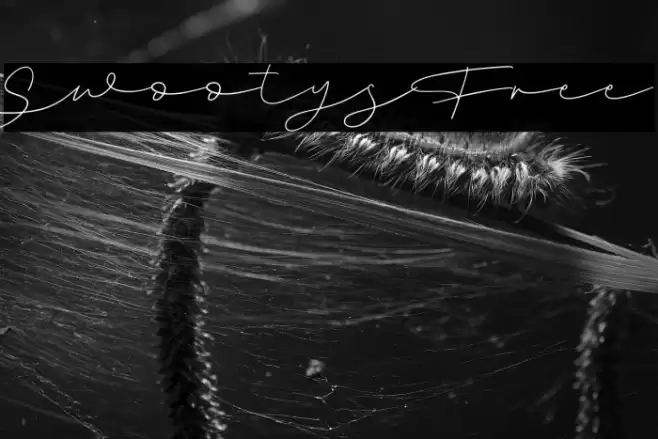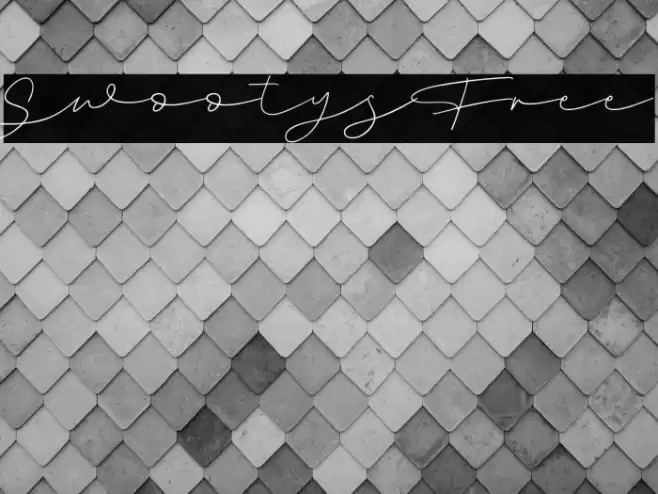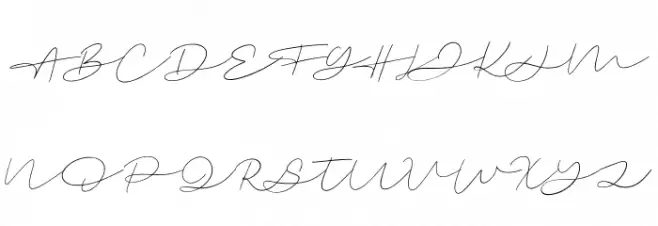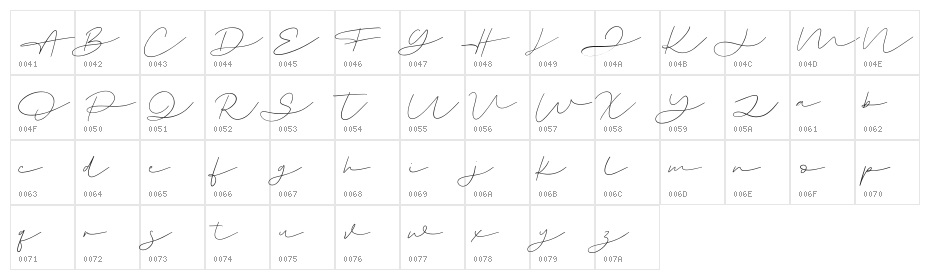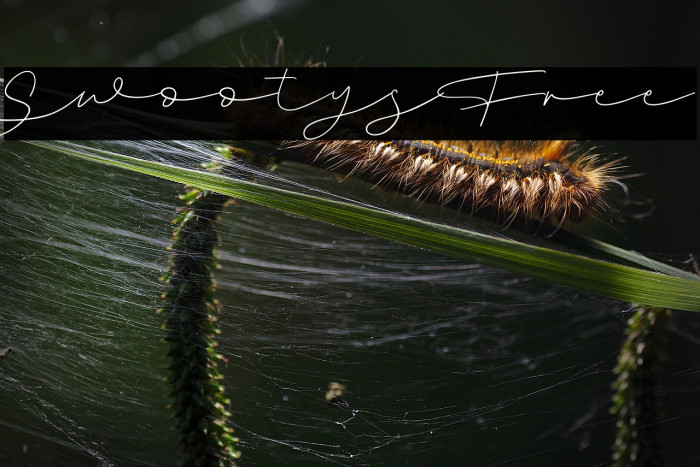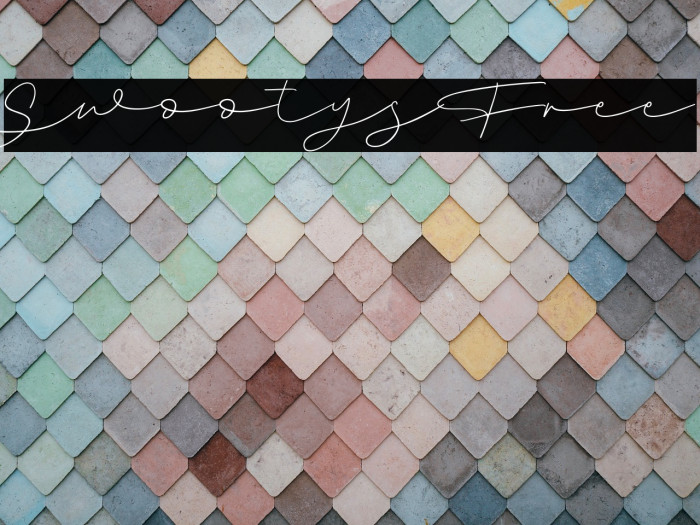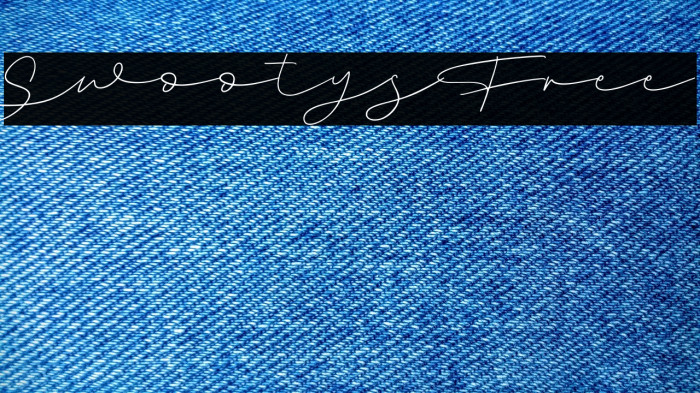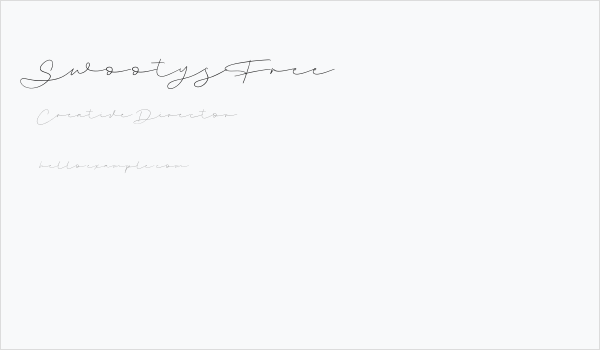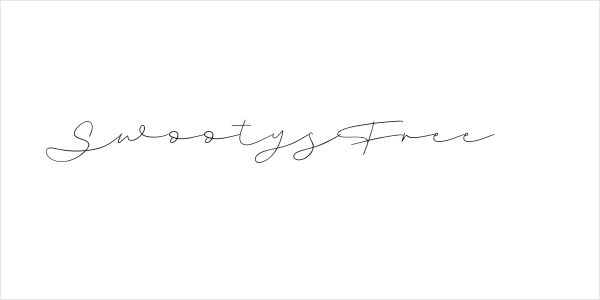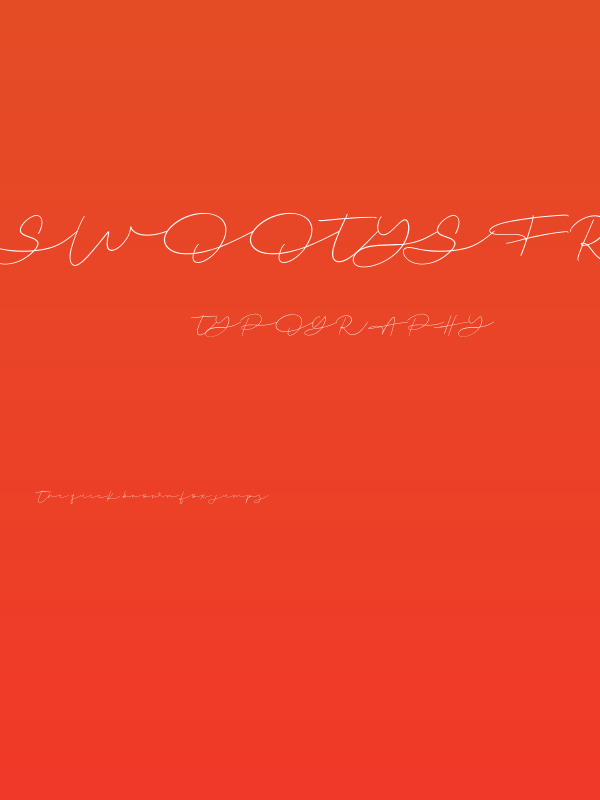
Swootys Free Font
Swootys Free Description
This font features a delicate, flowing script style that mimics elegant handwriting. The characters are connected with smooth, continuous strokes, creating a sense of fluidity and grace. The uppercase letters are slightly more elaborate, with loops and curves that add a touch of sophistication. The lowercase letters maintain a consistent height, contributing to a harmonious appearance. The overall design is airy and light, with thin lines that give it a refined and graceful look. This font is perfect for projects that require a personal, handwritten touch, such as invitations, greeting cards, or branding materials.
A delicate, flowing script font with elegant, continuous strokes from Regular fonts.
- Proposed Projects: Ideal for wedding invitations, personal stationery, branding, and elegant logos.
- Weight: Light
- Overall Style: Elegant, Handwritten
- Use Case: Invitations, Greeting cards, Branding